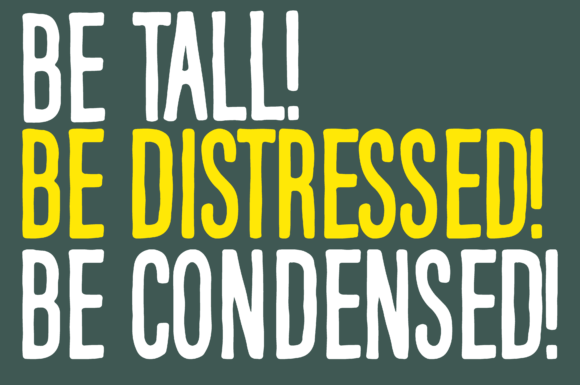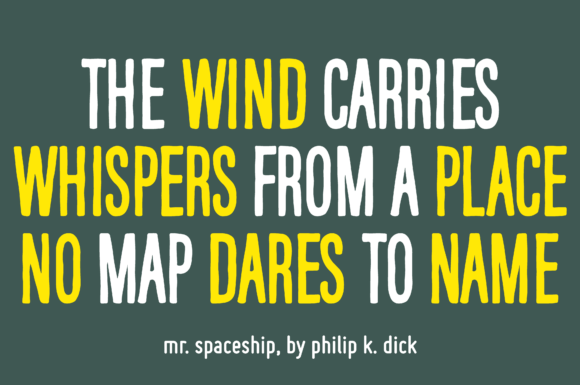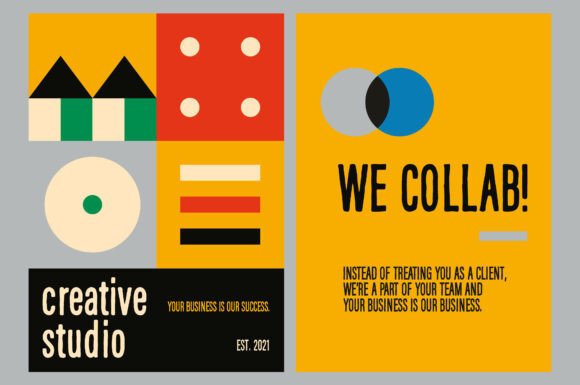
Getting Creative with Railtown Font
Have you ever stared at a blank canvas, trying to conjure up the perfect design to capture the essence of your creative project? It’s that moment when the perfect font can make all the difference. As designers, we’re constantly on the lookout for a high-quality, free download that can elevate our designs and give them that extra oomph. That’s where the Railtown Font comes in – a tall, condensed, and distressed sans serif font that’s perfect for bold headlines, vintage branding, and editorial layouts.
Whether you’re working on a design project that demands impact or character, Railtown Font’s rugged texture and minimalist style make it an ideal choice. With its transparent background and versatility, it’s a must-have for graphic designers, crafters, and creatives looking to add an authentic, handcrafted edge to their work.
Key Features of Railtown Font
- High-quality font designed for creative projects, ideal as a design resource for various applications.
- Features a transparent background, making it easy to overlay on images and backgrounds.
- Designed to work well at high resolutions, suitable for use in print and digital applications.
- Perfect for designers and artists looking for a unique and stylish font to enhance their creative projects.
Honest Review: Railtown Font
As a designer, I’m always on the lookout for high-quality design resources to elevate my creative projects. The Railtown Font caught my eye due to its unique aesthetic and versatility. I downloaded it for free, which is always a bonus.
- ✨ The Railtown Font’s distressed texture adds a nice touch to any design, giving it a worn, vintage feel.
- ✨ The font is highly customizable, making it suitable for a wide range of creative projects, from logos to advertisements.
- ✨ The transparent background option allows for seamless integration with other design elements.
- ⚠️ The font may not be suitable for all types of text, as the distressed texture can make it difficult to read in certain situations.
- ⚠️ The font’s versatility can also be a drawback, as it may be too generic for some designs.
Overall, I’m impressed with the Railtown Font’s potential, but it’s not a one-size-fits-all solution. With some careful consideration and experimentation, it can be a valuable addition to any designer’s toolkit.
Tips for Getting the Most Out of Railtown Font
For the best results, use Railtown Font with a transparent background to create a high-quality design. Experiment with different font sizes and styles to find the perfect fit for your creative project. This versatile font is a valuable design resource for any project.
Railtown Font is perfect for various design projects, including logos, business cards, and marketing materials. Its high-quality design and transparent background make it an ideal choice for creating professional-looking designs.